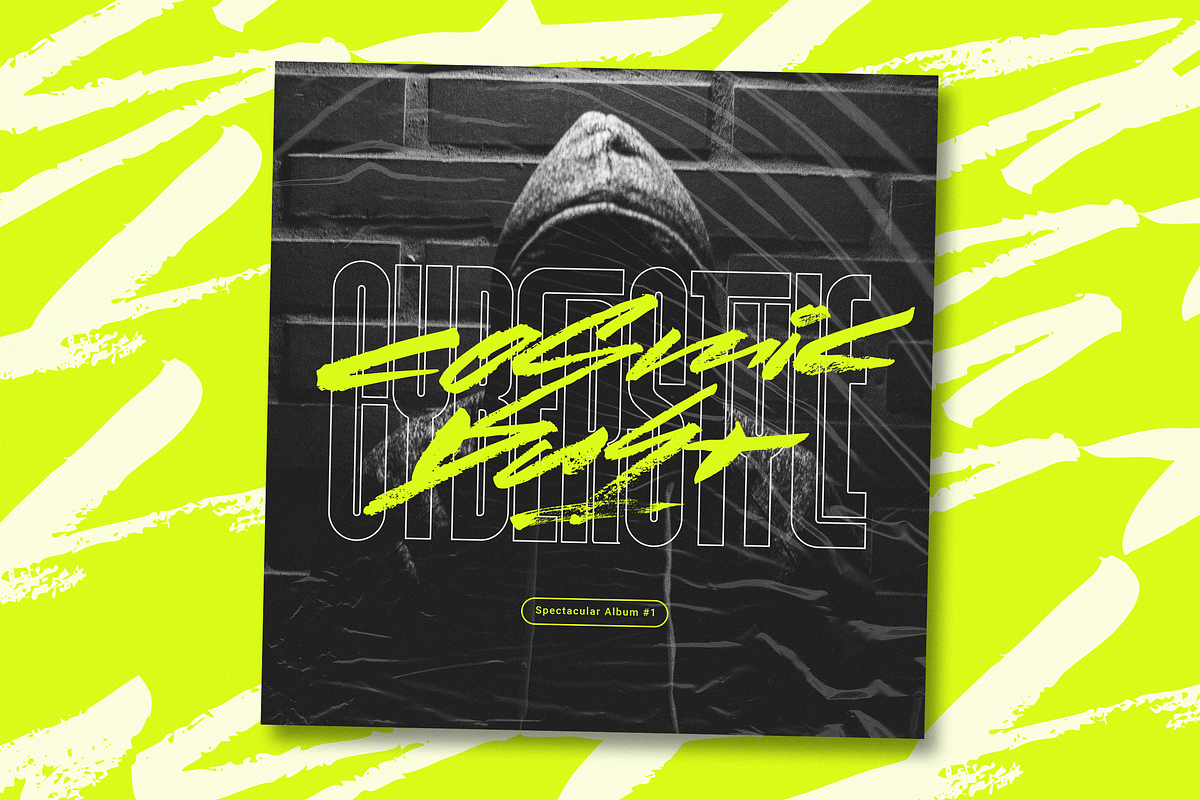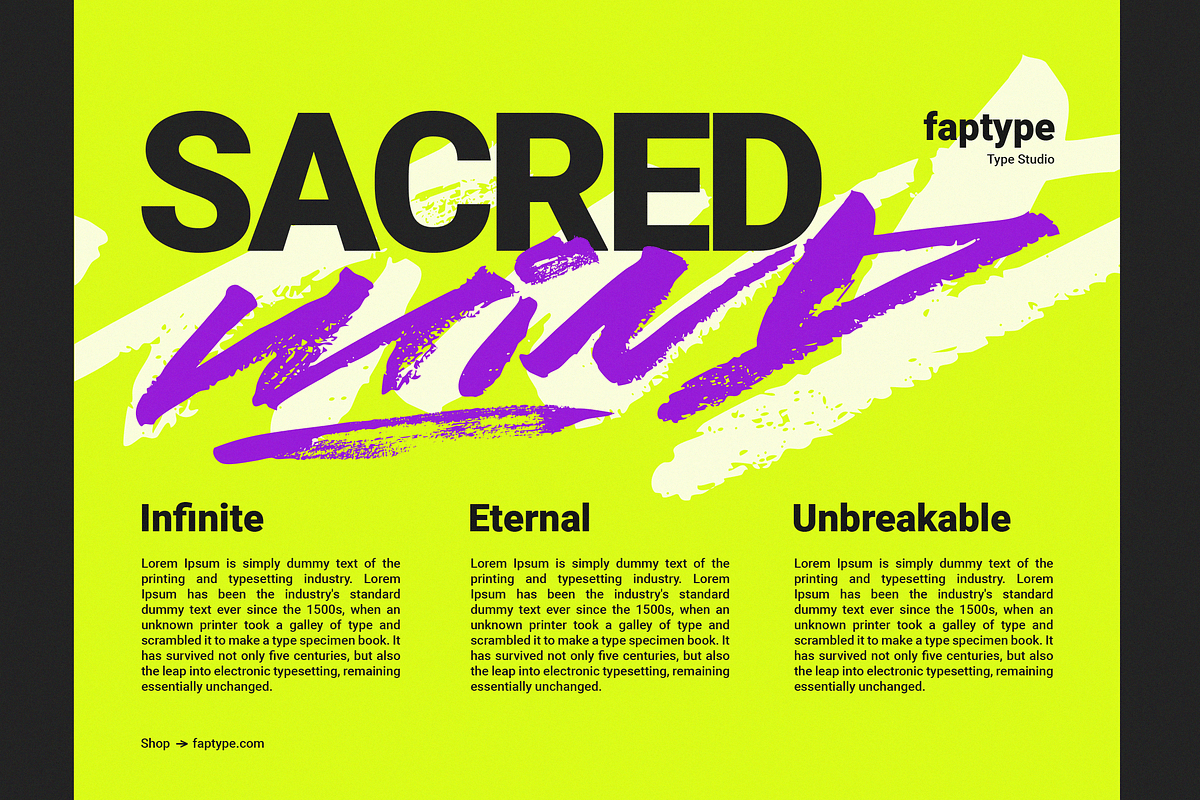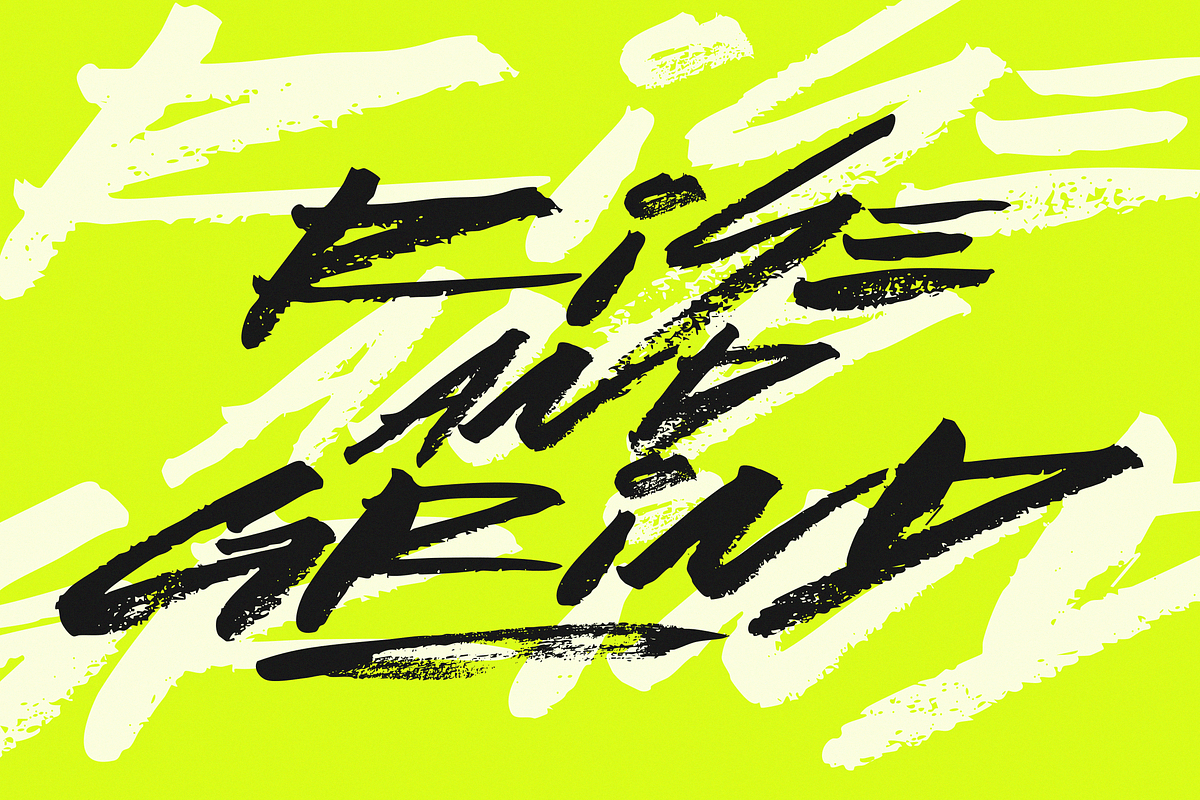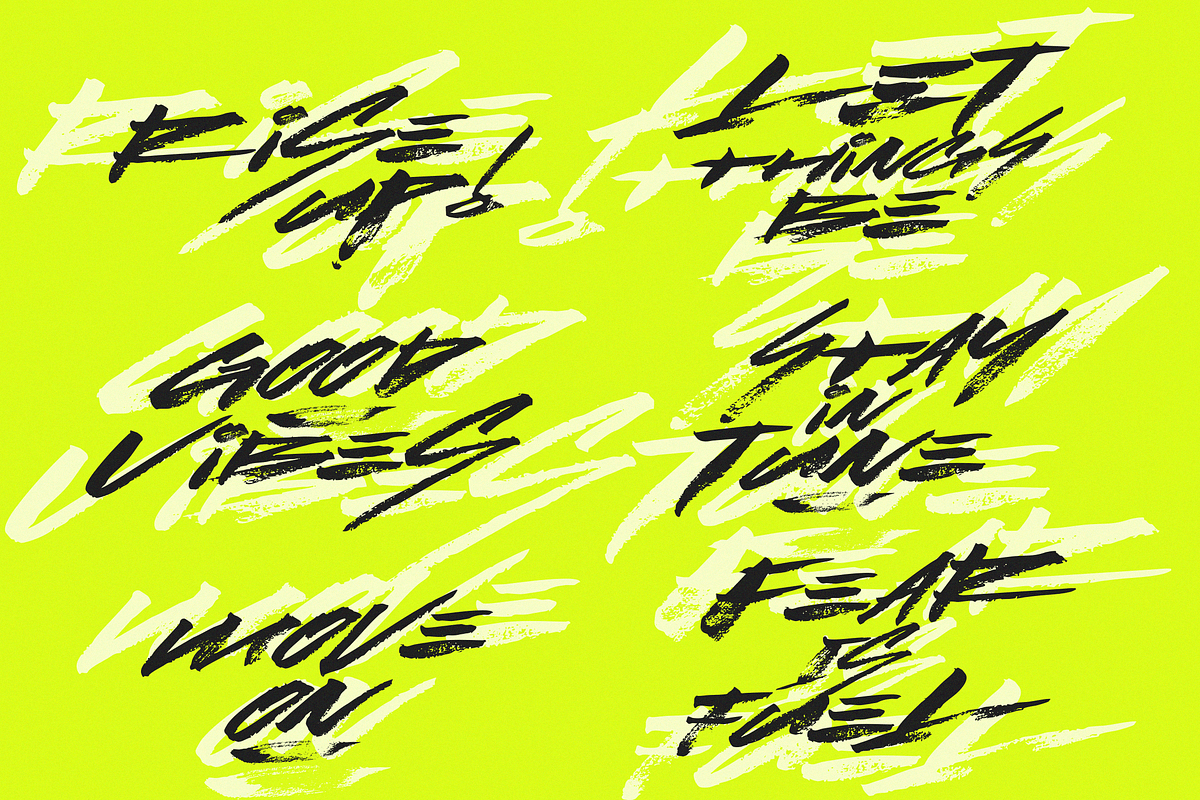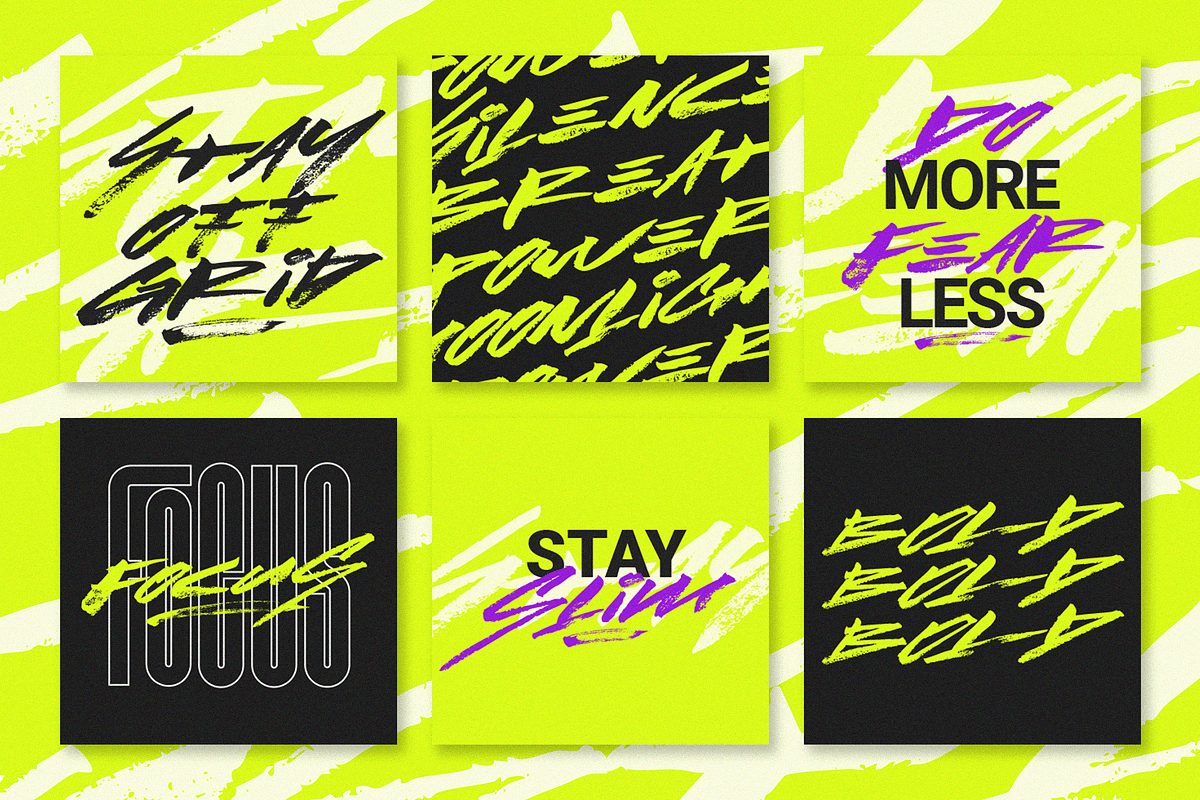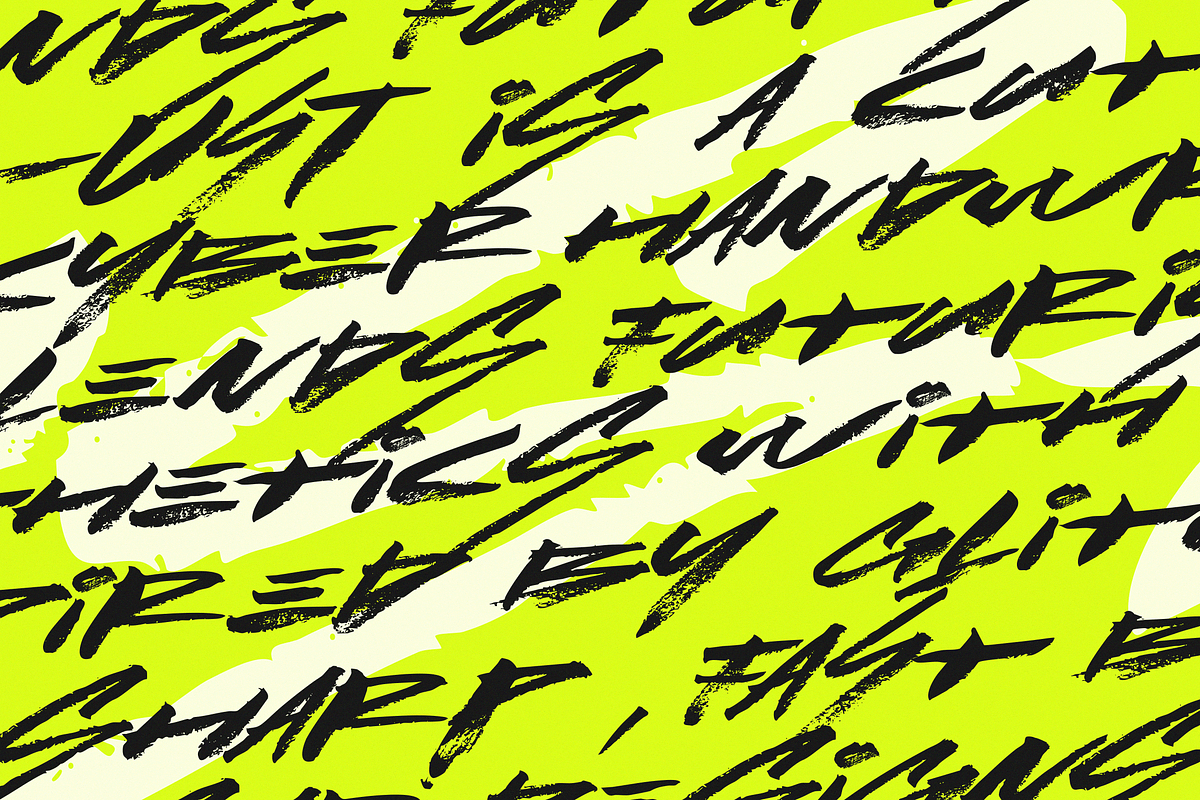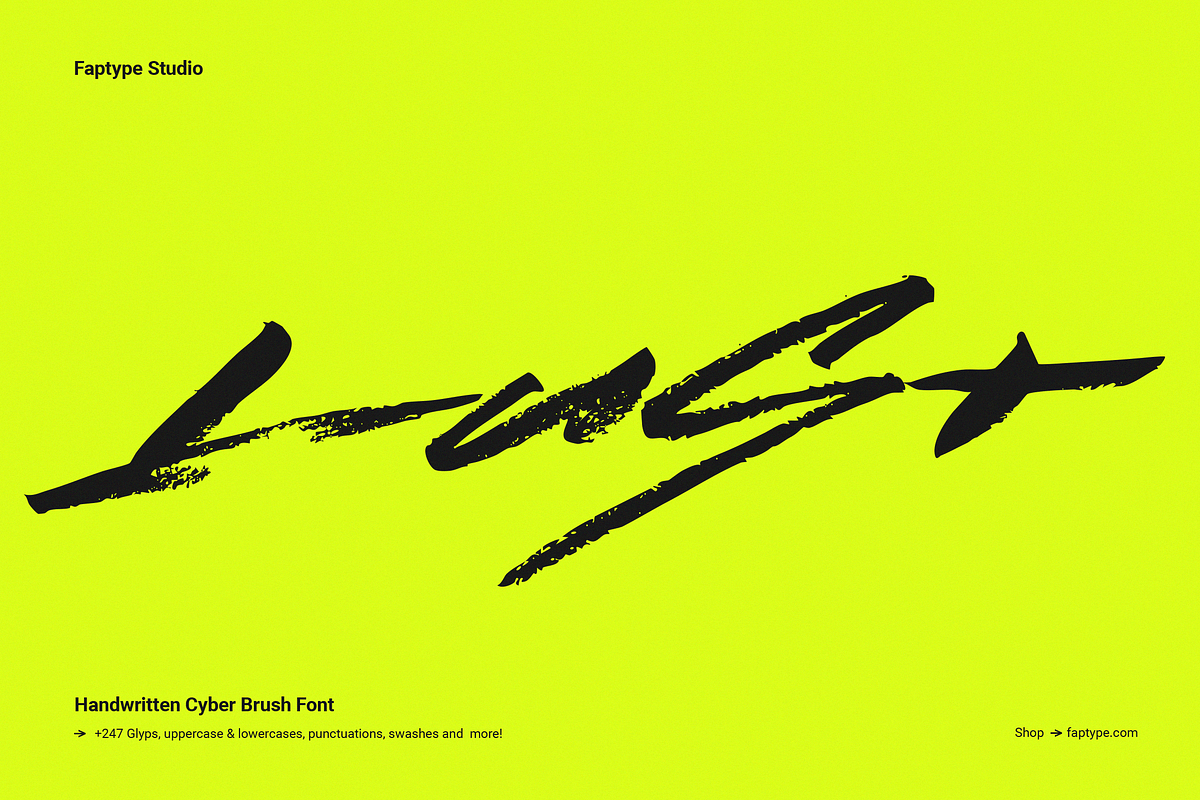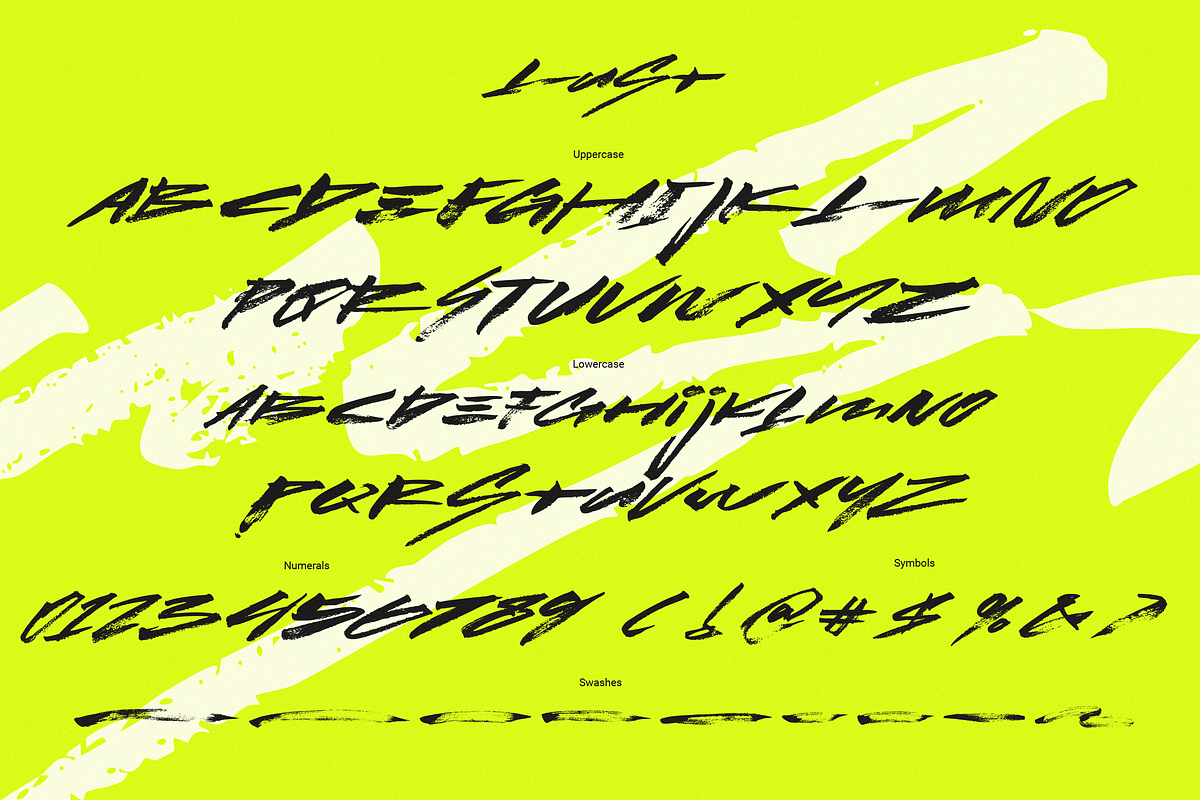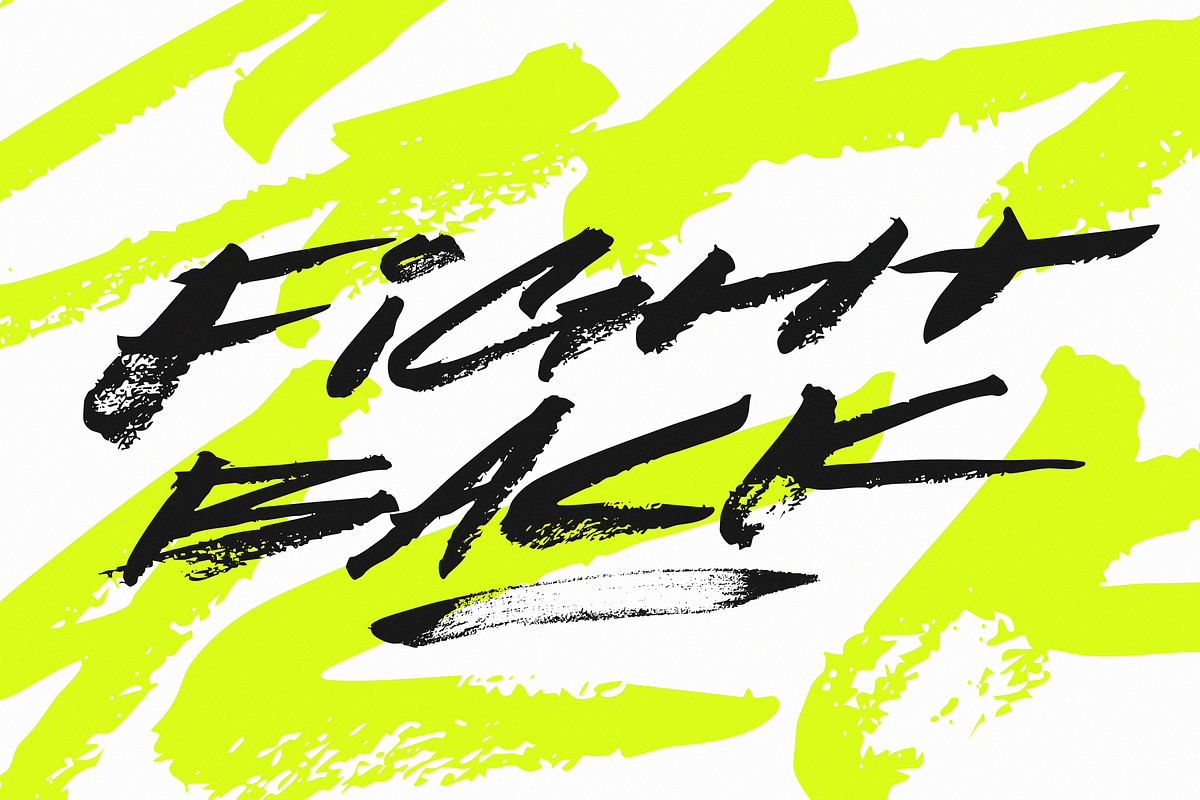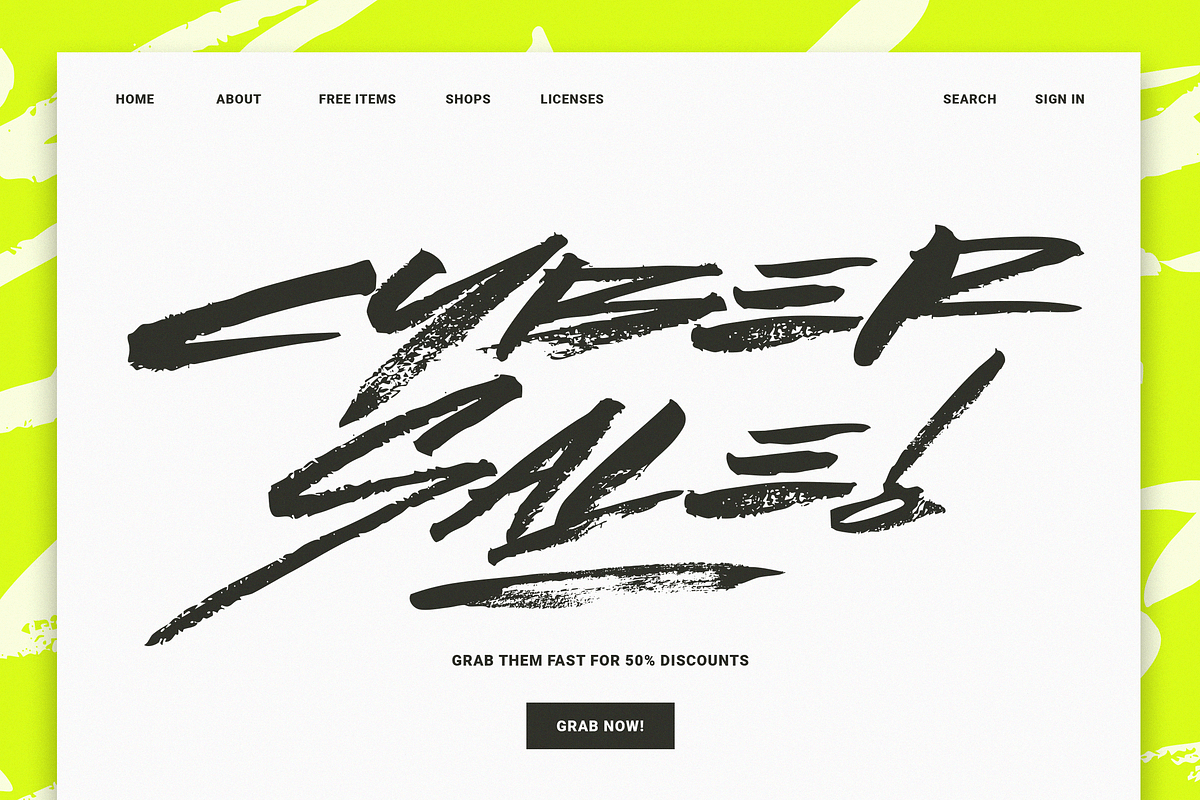
Lust | Handwritten Cyber Brush Font
Introducing LUST – a font that doesn’t whisper in the dark… it shouts through static.
In a world of flickering neon lights and digital ruins, LUST is your weapon of expression. This cyber handwritten brush font bleeds rebellion and urgency, as if scribbled by an underground coder moments before the firewall explodes. It’s raw, imperfect, and unapologetically alive—just like the voice of a hacker who still believes in beauty amidst the chaos.
Every stroke of LUST carries intentional distortion—not a glitch, but a signature. It mimics the rush of adrenaline during a midnight data heist, the rhythm of pulse pounding beneath neon skies. The rough brush texture simulates human urgency in a synthetic world—where typography becomes resistance and every letter, a piece of soul.
LUST is more than a typeface. It's a visual ideology. Whether you're crafting streetwear branding, vaporwave posters, cyberpunk interfaces, or grunge music covers—this font makes your message feel electric, imperfect, and undeniably human. Because in the end, even in digital dystopia, emotion is the ultimate code.
Lust Features:
- A full set of Uppercase and Lowercase
- Numbers and Punctuation
- Multilingual Language Support
- OpenType Features
- +247 Total Glyphs